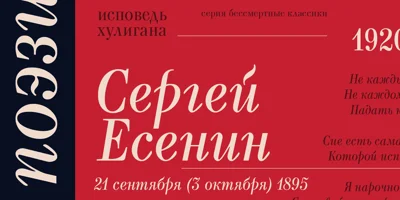
Kuzanyan Font
Kuzanyan Font is perfect for Eastern European cultural center branding, Slavic heritage museum exhibitions, traditional folk festival promotions, authentic European cuisine restaurants, cultural exchange program materials, historical preservation society communications, ethnic craft marketplace signage, multicultural celebration graphics, European ancestry organization logos, and distinguished Eastern European lifestyle branding.
What makes Kuzanyan Font so exciting is its extraordinary ability to capture the rich cultural heritage and sophisticated artistry of Eastern European civilization through elegantly crafted letterforms that seem inscribed by master calligraphers in ancient monasteries and blessed with the kind of cultural authority that flows through centuries of intellectual achievement and artistic excellence that have shaped Slavic identity. This font embodies the essence of Eastern European sophistication and cultural depth, featuring gracefully proportioned characters that appear to carry the wisdom of generations and the artistic legacy of cultures that have contributed immeasurably to world literature, music, architecture, and philosophical thought. The culturally refined letter shapes create an atmosphere of intellectual dignity and artistic heritage, making every word feel like it honors the profound traditions that have defined Eastern European civilization and continue to inspire global appreciation for Slavic cultural contributions.
The Kuzanyan Font family includes Light, Regular, Medium, Bold, and Ornate variations, along with Slavic symbols and traditional decorative elements. Each style maintains the font's distinctive cultural character while offering versatility for different heritage applications, from delicate historical documentation to commanding celebration headlines that announce the enduring vitality of Eastern European culture and artistic achievement.
This distinguished typeface brings authentic Eastern European cultural aesthetics to contemporary design projects. The Kuzanyan Font provides designers with an invaluable resource for creating memorable brand identities that communicate cultural depth, artistic sophistication, and Eastern European authenticity. Whether you're developing cultural institution branding, designing heritage preservation materials, or creating multicultural communications, this font delivers unmatched elegance and cultural credibility.
The expertly crafted letterforms in Kuzanyan Font feature classical proportions and refined details that mirror the architectural grandeur of Eastern European cities and the sophisticated cultural traditions that have produced some of the world's greatest literary works, musical compositions, and philosophical contributions. Each character has been designed to maintain perfect readability while expressing the intellectual richness and cultural gravitas that define authentic Eastern European artistic expression. The font's distinctive personality makes it ideal for applications requiring genuine cultural authority and Slavic heritage appeal.
Cultural and educational professionals appreciate how Kuzanyan Font effortlessly communicates sophistication, cultural authenticity, and Eastern European excellence while appealing to international audiences seeking genuine cultural experiences that honor both historical traditions and contemporary achievements of Slavic civilization. The comprehensive character set includes Cyrillic-inspired symbols, cultural ornaments, traditional decorations, and extensive international language support, ensuring global compatibility while preserving its distinctive Kuzanyan identity. This makes it an invaluable resource for cultural institutions, heritage organizations, educational programs, and any establishment seeking typography that embodies the timeless principles of Eastern European cultural excellence, intellectual sophistication, and the kind of refined beauty that reflects the enduring legacy of civilizations that understand culture is the foundation upon which societies build their highest aspirations and most lasting contributions to human understanding, artistic beauty, and the eternal quest for wisdom that connects all peoples through the shared appreciation of truth, beauty, and the profound cultural achievements that enrich the human experience across all borders and generations.